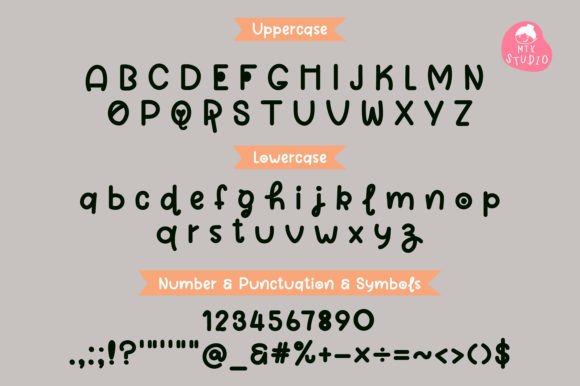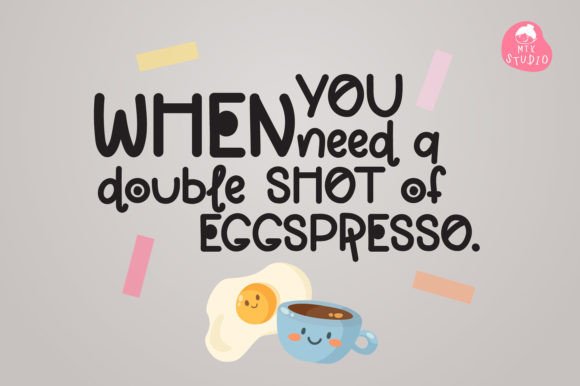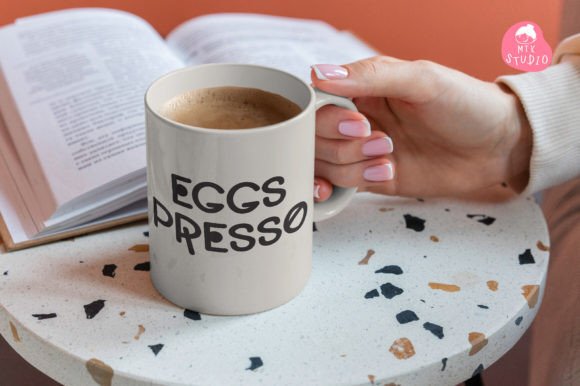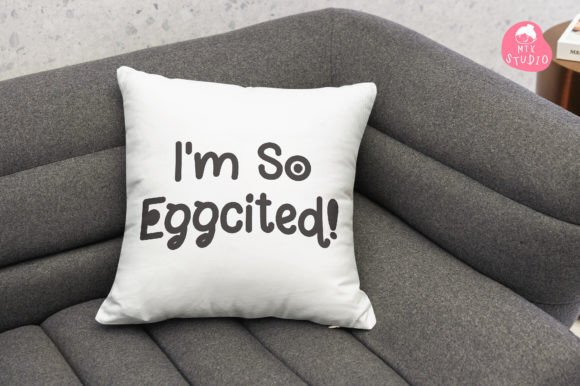
The FriedEgg Font: A Sweet and Friendly Companion for Your Design Projects
I’ll never forget the time I was working on a branding project for a trendy new cafe, and I just couldn’t find the right font to capture their playful yet sophisticated vibe. That was until I stumbled upon the FriedEgg font. It was love at first sight! ✨ The natural, handwritten style and unique flair of FriedEgg instantly won me over, and it’s been a staple in my design toolkit ever since.
An Honest Review of FriedEgg
- ✅ Sweet and Friendly Style: FriedEgg’s handwritten style is perfect for adding a personal touch to your designs.
- ✨ Versatility: This font can be used for a wide range of projects, from branding and packaging to social media graphics and more.
- 🔥 Unique Flair: FriedEgg’s natural, imperfect style gives it a charming and authentic feel that’s hard to find in other fonts.
While FriedEgg is an amazing font, there are a few things to keep in mind: ⚠️
- 🤔 Limited Formality: FriedEgg is a highly informal font, so it may not be the best choice for very formal or corporate projects.
- ⚠️ Glyph Limitations: While FriedEgg has a great range of glyphs, it may not have every special character or symbol you need.
- Experiment with OpenType features like stylistic alternates to add some extra flair to your text.
The Story Behind FriedEgg
While the origins of FriedEgg are shrouded in mystery, it’s easy to imagine that this font was born from a passion for handwriting and a love of breakfast food. 😊 Perhaps the designer, fueled by a morning cup of coffee and a plate of fried eggs, simply sat down and started writing – and the FriedEgg font was born.
| Font Name | Friedegg Font |
| Author | MTK Studio |
Q: What makes FriedEgg so versatile?
A: FriedEgg’s natural, handwritten style and unique flair make it suitable for a wide range of projects, from branding and packaging to social media graphics and more.
Q: Does FriedEgg support OpenType features?
A: Yes, FriedEgg supports OpenType features like stylistic alternates, ligatures, and more, making it easy to add extra flair to your text.